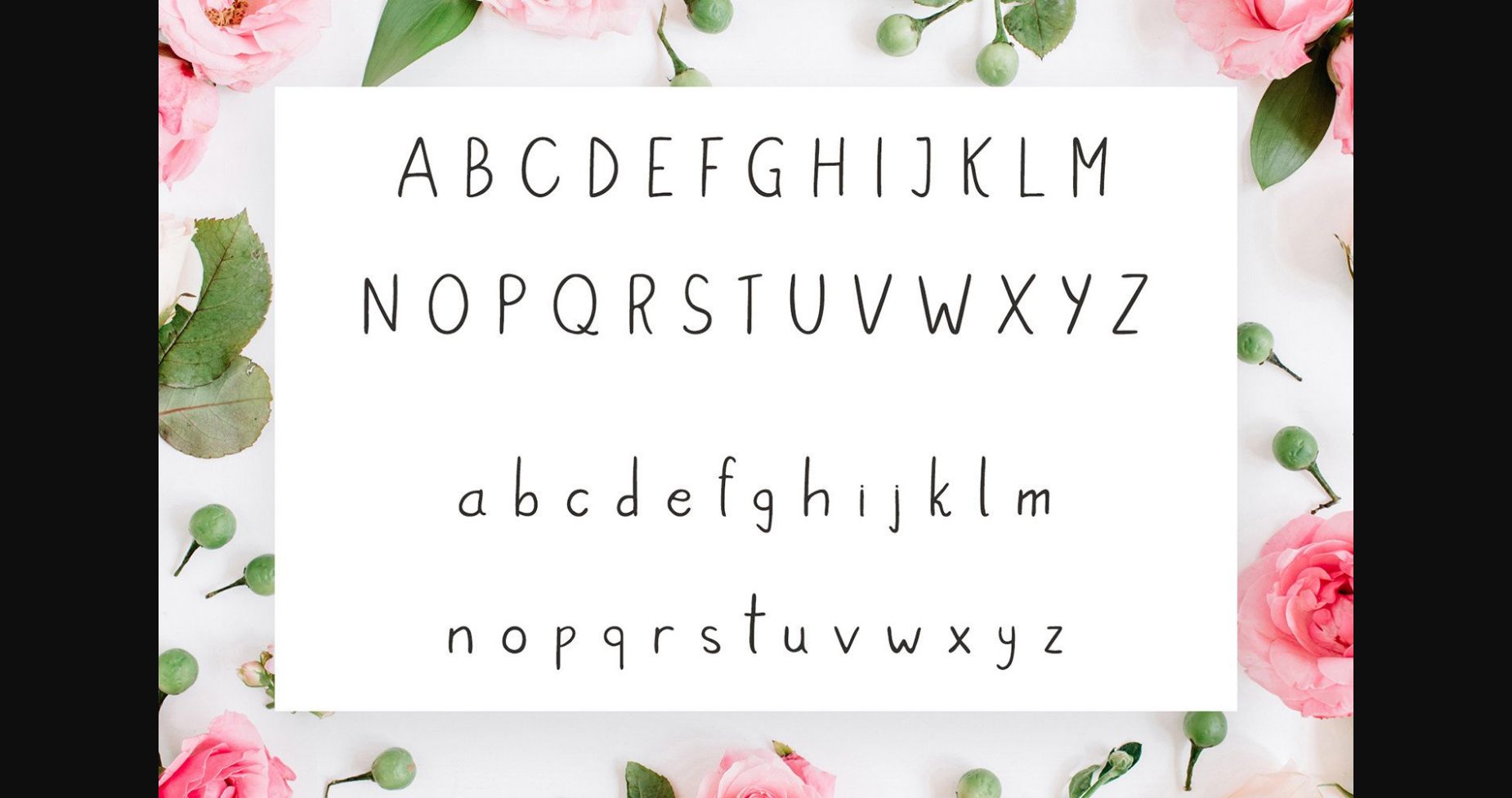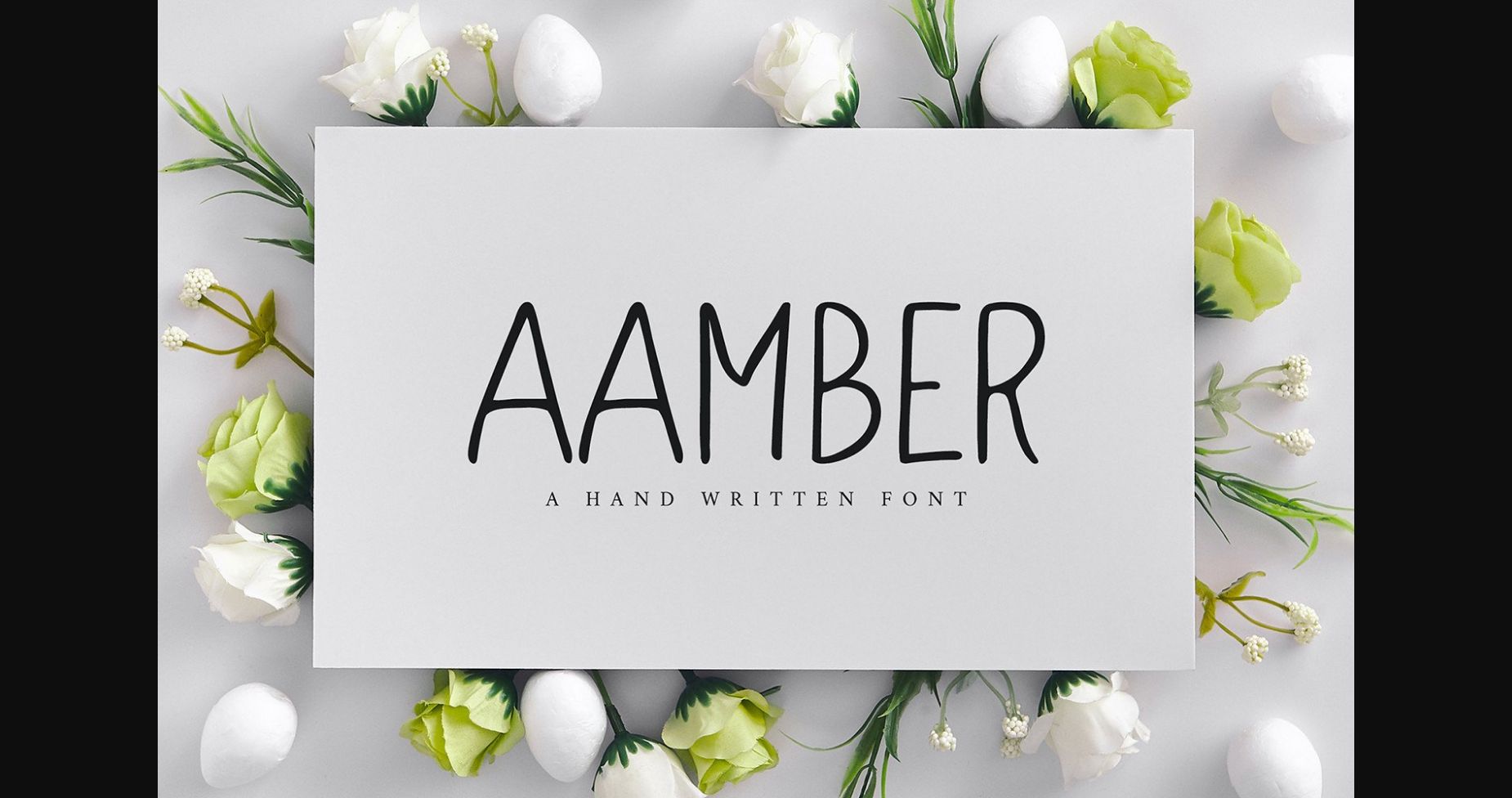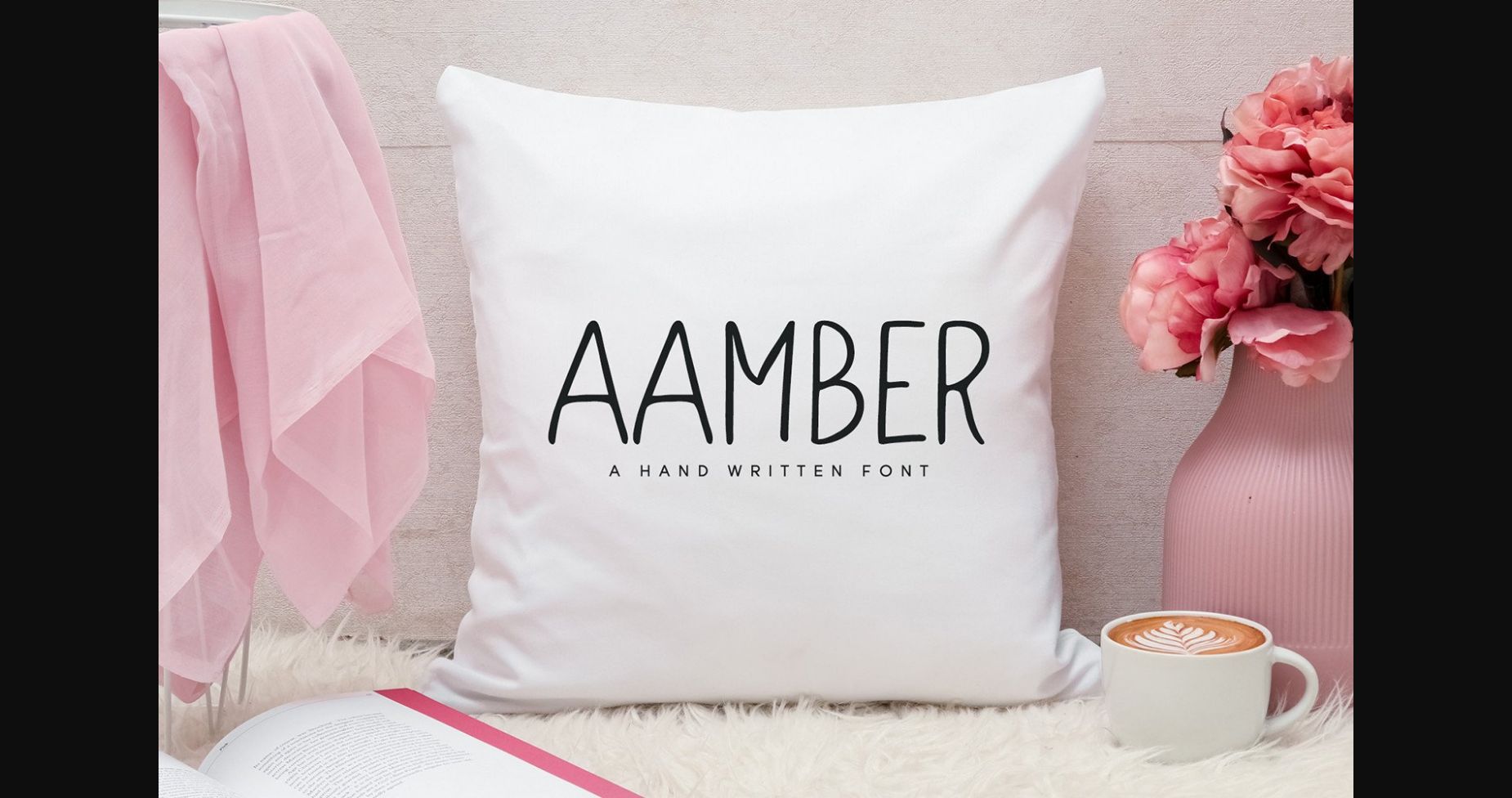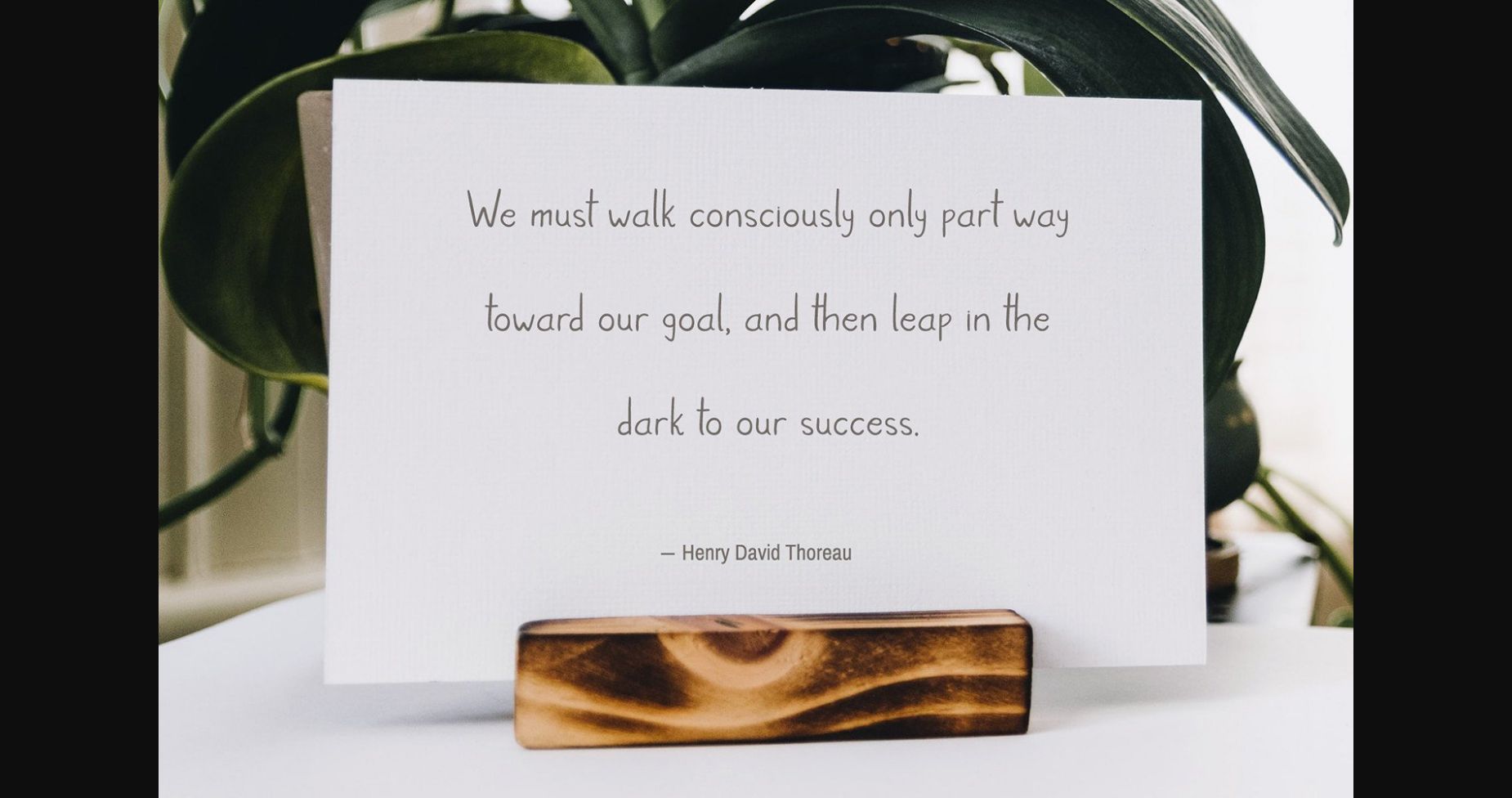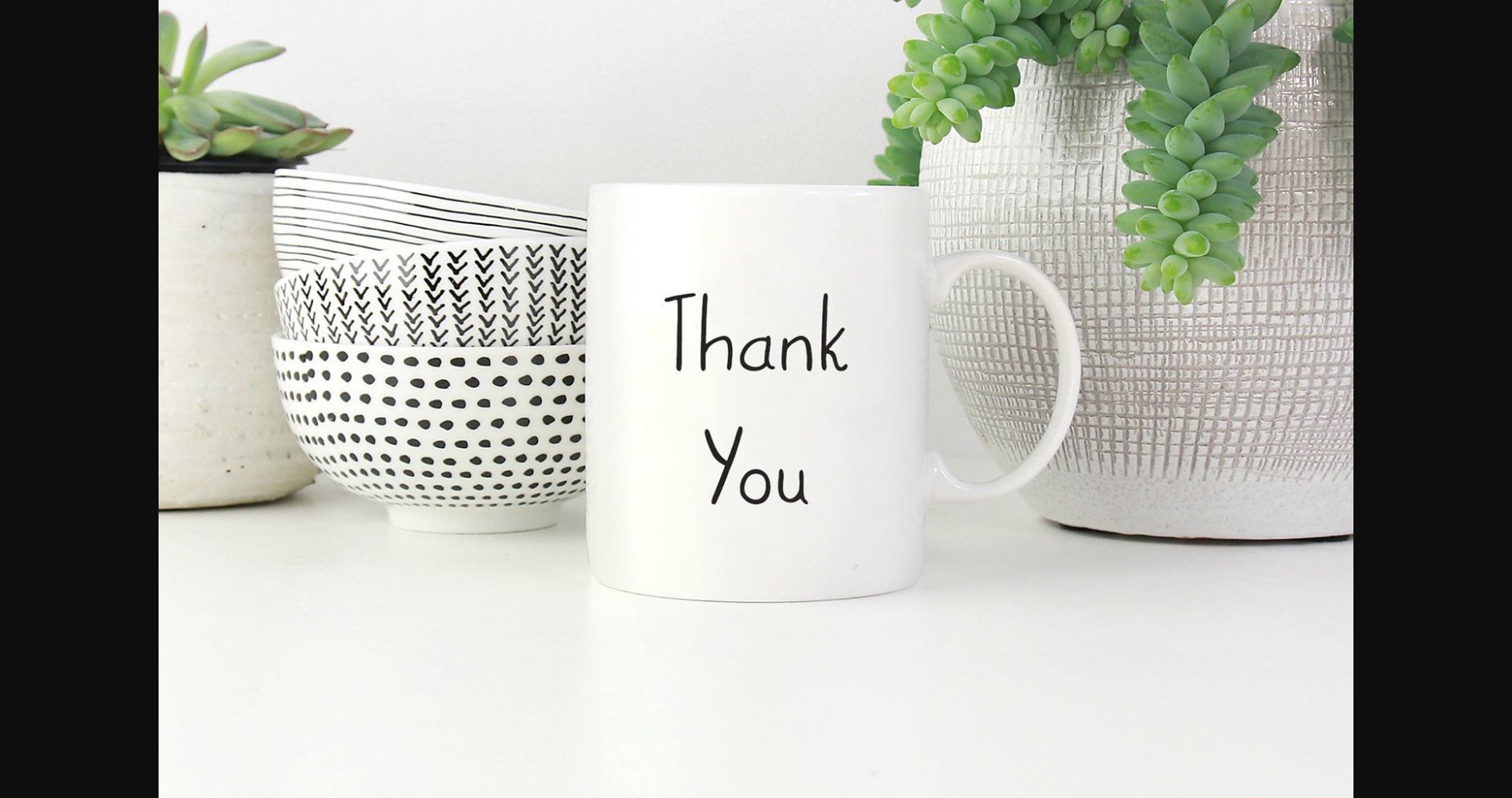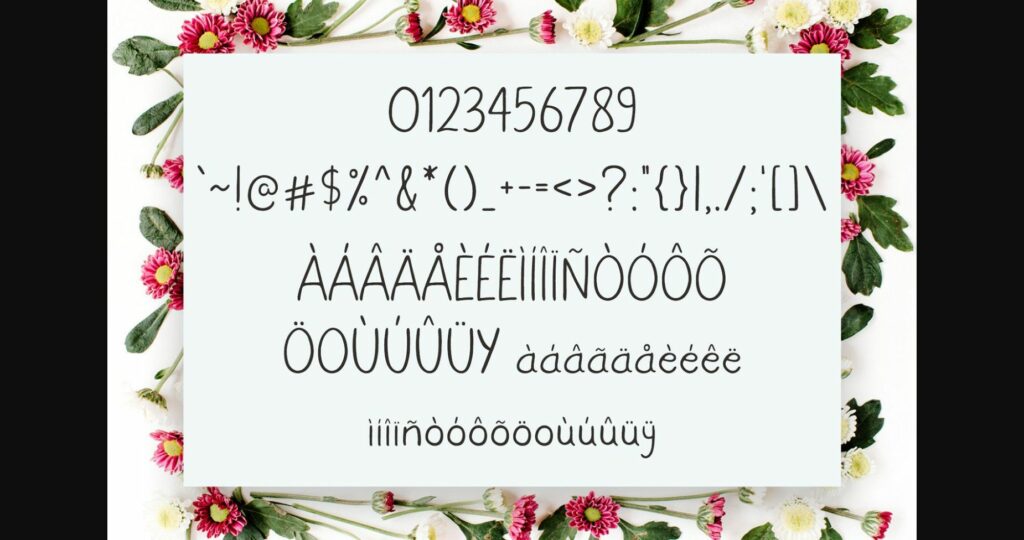
About Aamber Font
Aamber is a sweet, delicate, and modern sans serif font that’ll turn any design project into a stunning one!
Aamber will be perfect for packaging, presentations, logo, headlines, lettering, posters, branding, quotes, titles, magazine headings, web layouts, advertising, invitations, packaging design, books, and nearly any creative design.